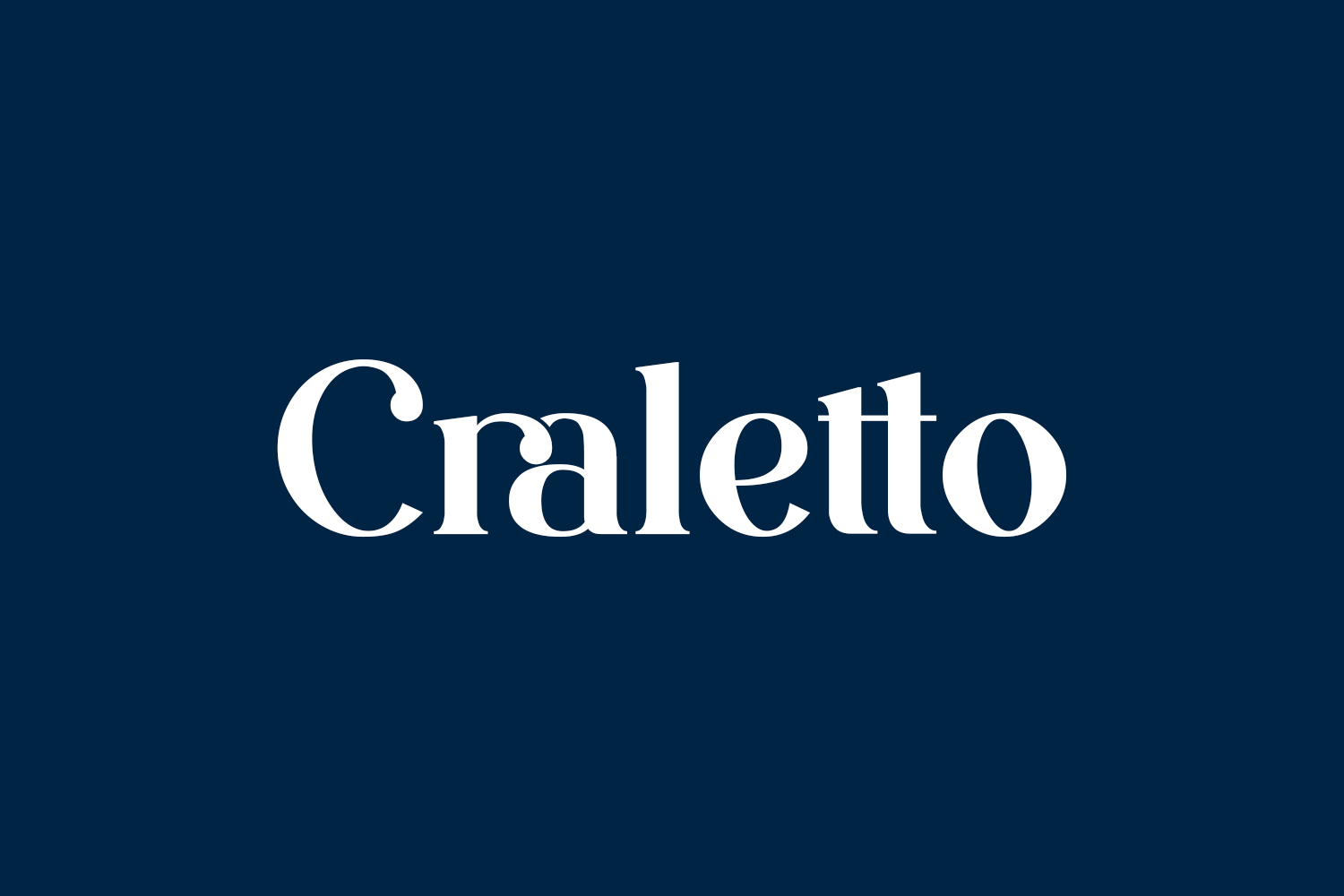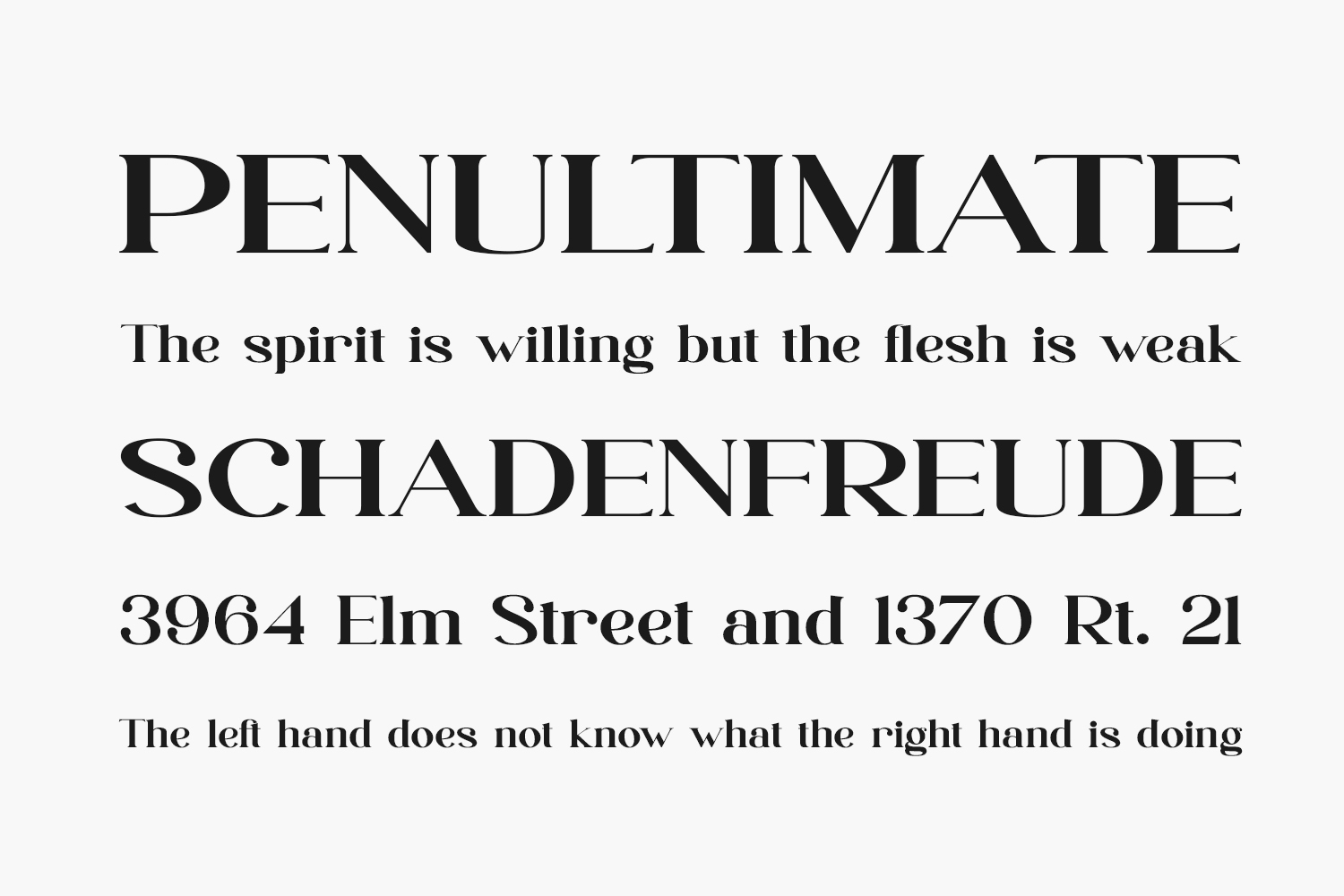
Meet Craletto Free Font, a refined serif font that exudes elegance. Perfect for a myriad of creative endeavors, this font will enhance everything from cards to branding and labels. Incorporate it confidently into your favorite projects and prepare to be amazed by the exceptional outcome it produces. Craletto Free Font was designed by Biham Santoso and is free for personal use only. Please purchase the full version for commercial use.
Designed by Biham Santoso